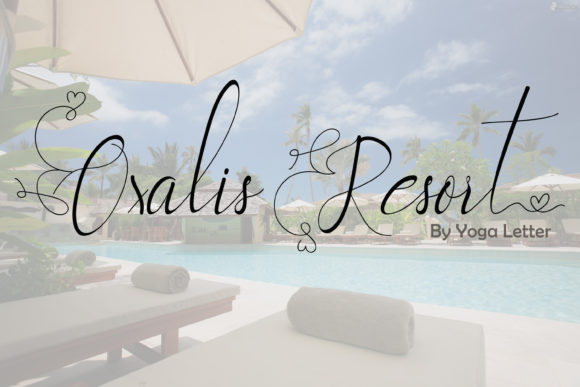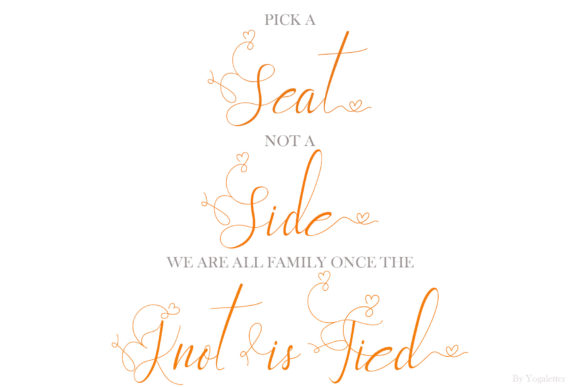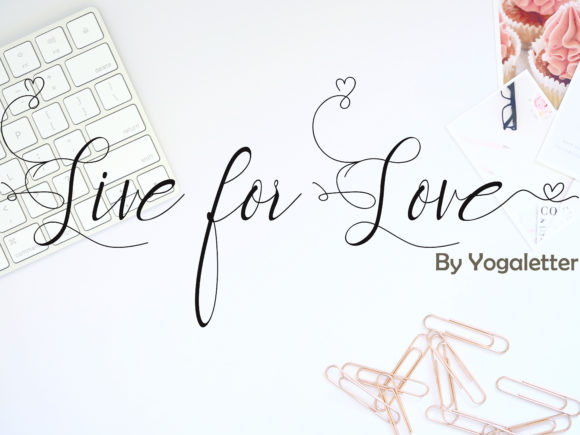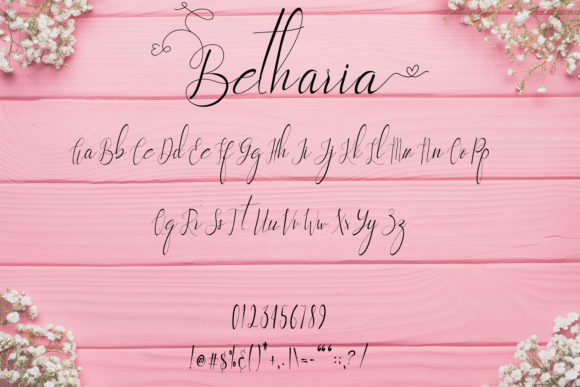
Betharia Font: Elevate Your Designs with Elegance and Flair
In the world of typography, a font can make or break a design. For designers and crafters seeking to add a touch of sophistication and whimsy to their creations, the Betharia Font is an exquisite choice. This delicate, elegant, and flowing handwritten font is designed to bring a new level of refinement and beauty to your projects.
The Beauty of Betharia
Betharia is characterized by its stunning, well-balanced characters that effortlessly blend elegance with a playful flair. The font’s design features a varying baseline, which adds a dynamic and organic feel to your text, making it perfect for a wide range of applications, from wedding invitations and branding materials to packaging and digital media.
One of the standout features of Betharia is its smooth lines and gorgeous glyphs. Each letterform is meticulously crafted to ensure that the font flows beautifully, creating a harmonious and visually appealing effect. Whether you’re working on a romantic project or a more modern and minimalist design, Betharia’s versatility shines through, adapting seamlessly to your creative vision.
Betharia Font comes with PUA (Private Use Area) encoding, a significant advantage for designers. PUA encoding allows you to access all the glyphs and swashes easily, giving you greater flexibility and creative control over your typography. This means you can effortlessly incorporate the beautiful alternates and decorative elements into your design, elevating it to a new level of sophistication and uniqueness.
Stunning Alternates and Glyphs
The font boasts an impressive array of stunning alternates and glyphs, providing you with a rich palette of options to enhance your designs. These alternates allow you to vary the look of your text, creating a more dynamic and engaging visual experience. Whether you’re looking to add a touch of whimsy or maintain a consistent elegant look, Betharia’s alternates and glyphs are sure to impress.
Perfect for a Wide Pool of Designs
Betharia’s versatility is one of its most compelling features. Its delicate and elegant nature makes it an excellent choice for:
- Wedding and event stationery
- Fashion and beauty branding
- Digital media and social content
- Any project requiring a touch of elegance and personality
This font’s ability to complement a wide range of designs makes it a valuable addition to any designer’s toolkit. Its flowing and elegant style can add a sophisticated touch to your projects, setting them apart from the ordinary.
Betharia Font is a beautiful, elegant, and versatile handwritten font that can elevate your designs to new heights. Its delicate and flowing characters, combined with PUA encoding for easy access to glyphs and swashes, make it an invaluable resource for designers and crafters. Whether you’re working on a romantic wedding project or a modern branding campaign, Betharia is sure to add a touch of sophistication and flair. Add it to your creative arsenal today and watch your designs come alive with elegance and beauty.